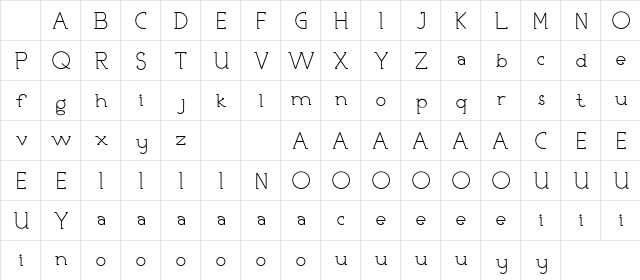
NICOLLS DEMO is a composed and adaptable typeface that performs quietly and consistently across a wide range of design contexts.
Pro Tip: Use NICOLLS DEMO in both headline and body roles to test its range before committing to a single application.